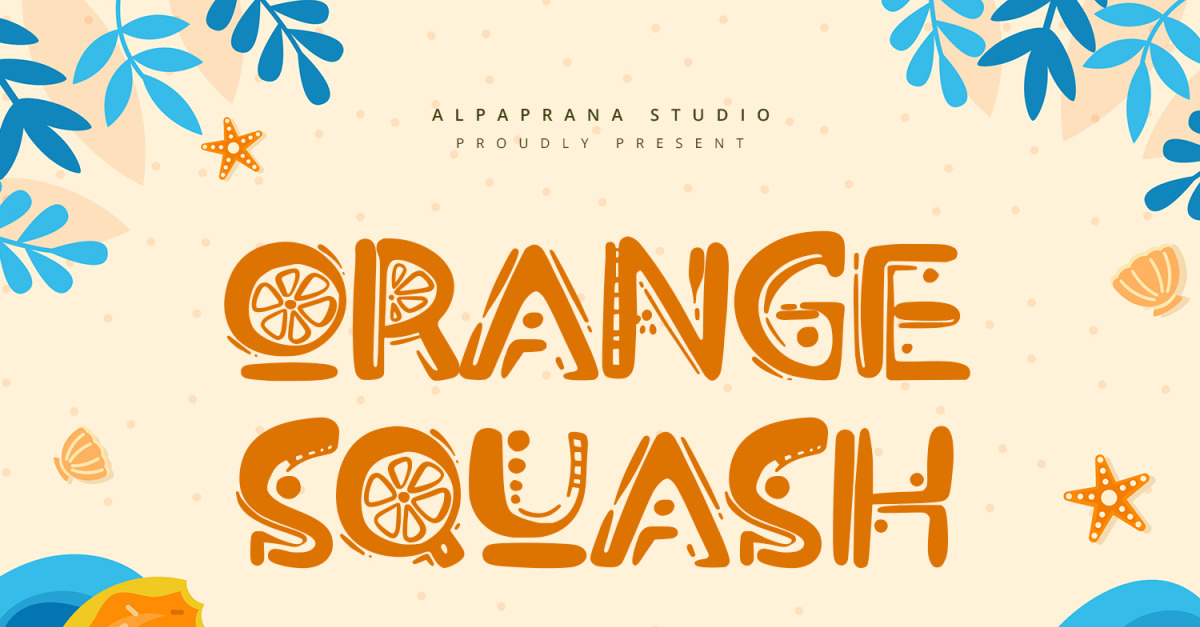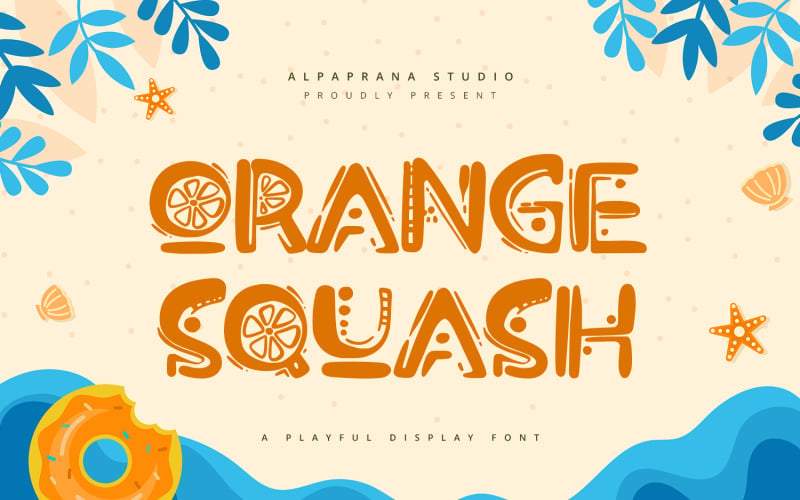
Orange Squash - Playful Display Font
Orange Squash is a playful display font with authentic and playful feels. It will be perfectly used for Branding, Logo Design, Lettering, Logotype, Clothing, Poster, magazine, packaging, posters, shopping bags, t-shirts, book covers, photography, special events and other design project.